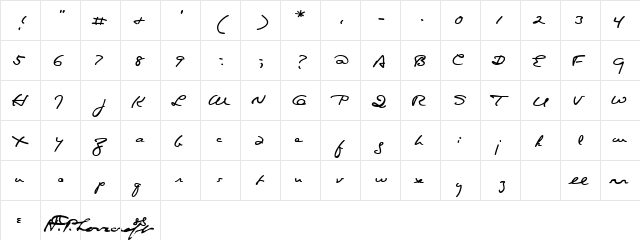
Lovecraft Cursive HPLHS
Design Context for Lovecraft Cursive Typeface
Lovecraft Cursive brings a calligraphic fluidity to the page — its connecting strokes and expressive curves give it an unmistakably human quality.